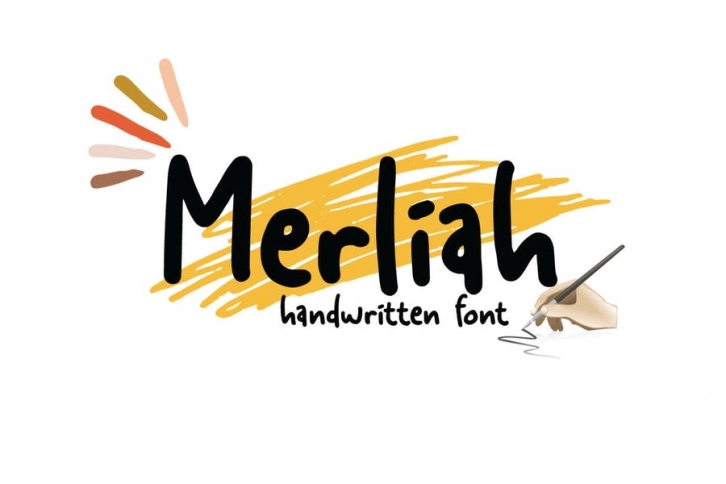
Introducing of our new product the name is Merliah handwritten font give your designs an authentic handmade feel.
Merliah font is perfect for stationery, logos, social media or just about anything that needs that handwritten touch
Merliah, offers you:
-Merliah font including Upper & Lowercase characters
-Supports Multi linguage (Latin Western Europe),
-Numbers and Punctuation